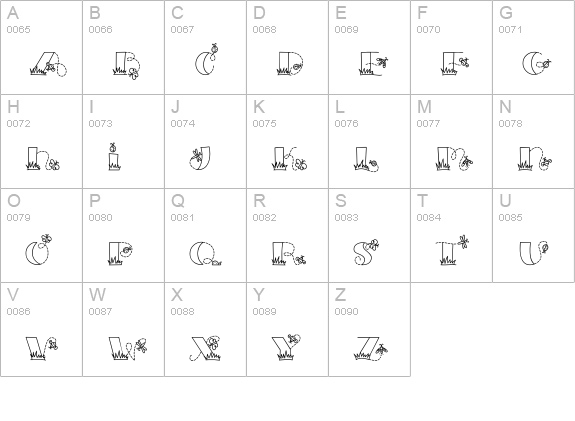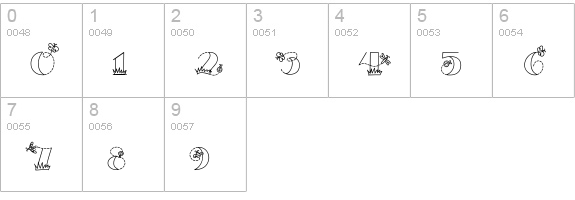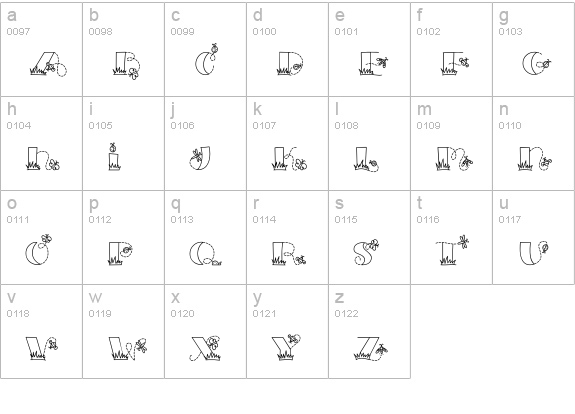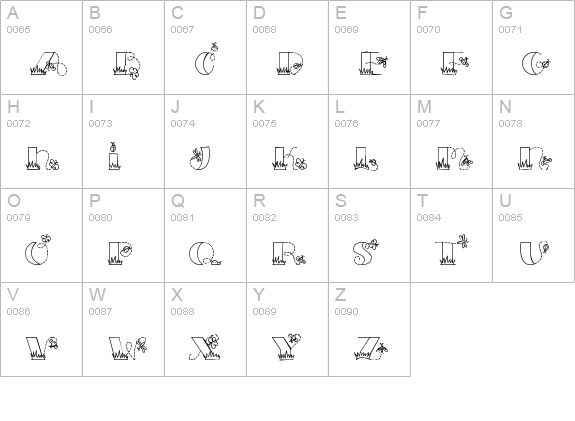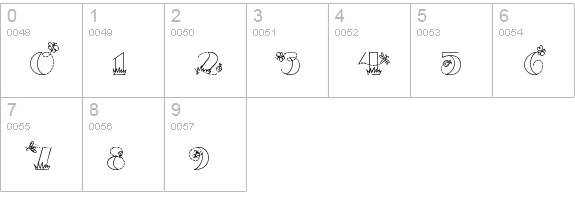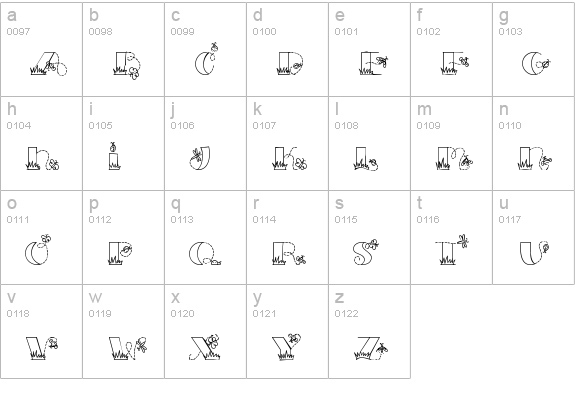
CK June Bugs Font Details
Introducing CK June Bugs font - a whimsical and playful typeface that is perfect for adding a touch of charm to your designs. This font features quirky and fun characters with a hand-drawn feel, making it ideal for various creative projects such as logos, branding, invitations, and more. CK June Bugs font is free to use and is available for download at FontsMarket.com. With its unique style and versatile usage, this font will surely bring a sense of joy and creativity to your projects. Don't miss out on this delightful font - download CK June Bugs today and start adding a playful twist to your designs!